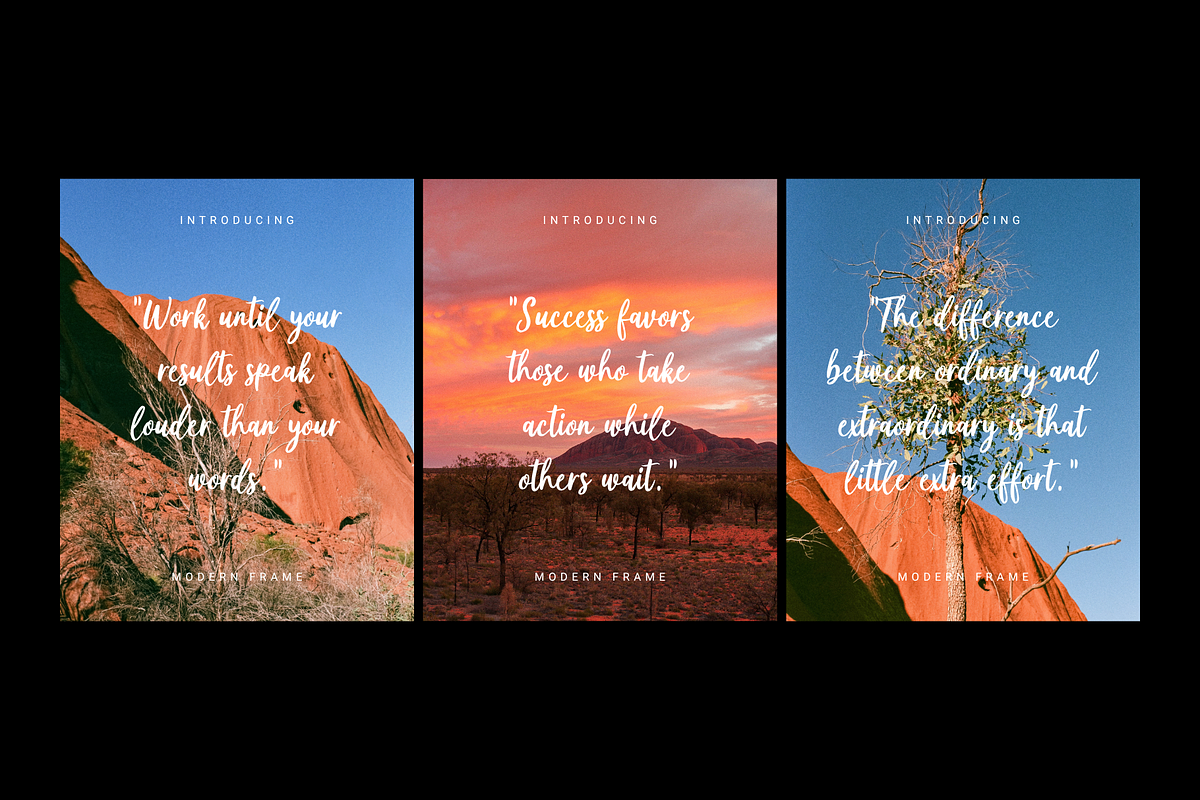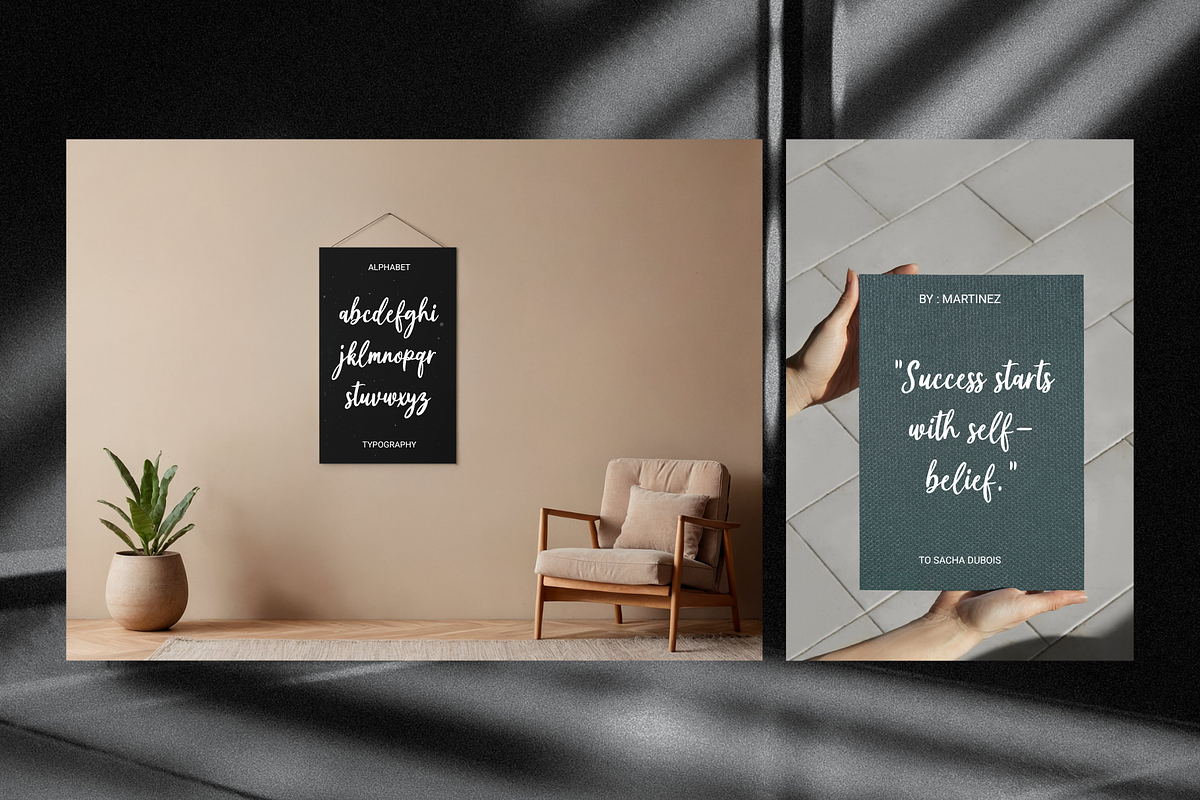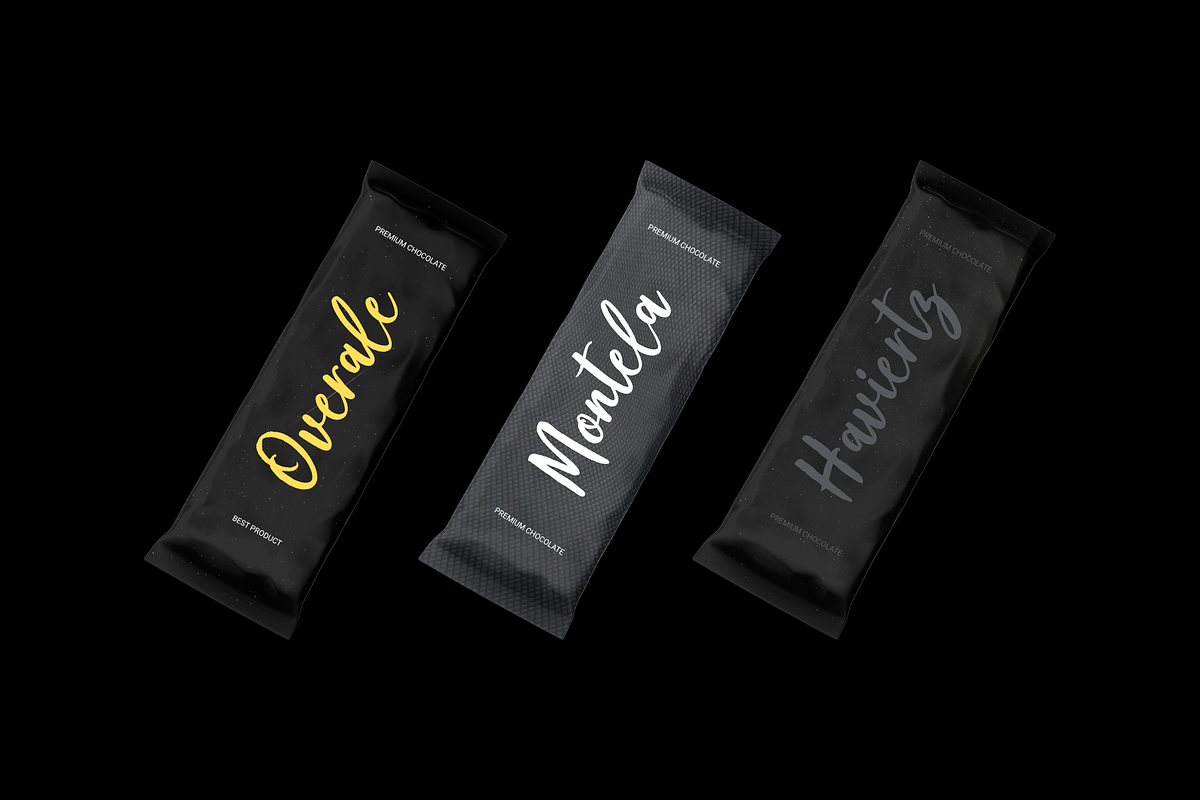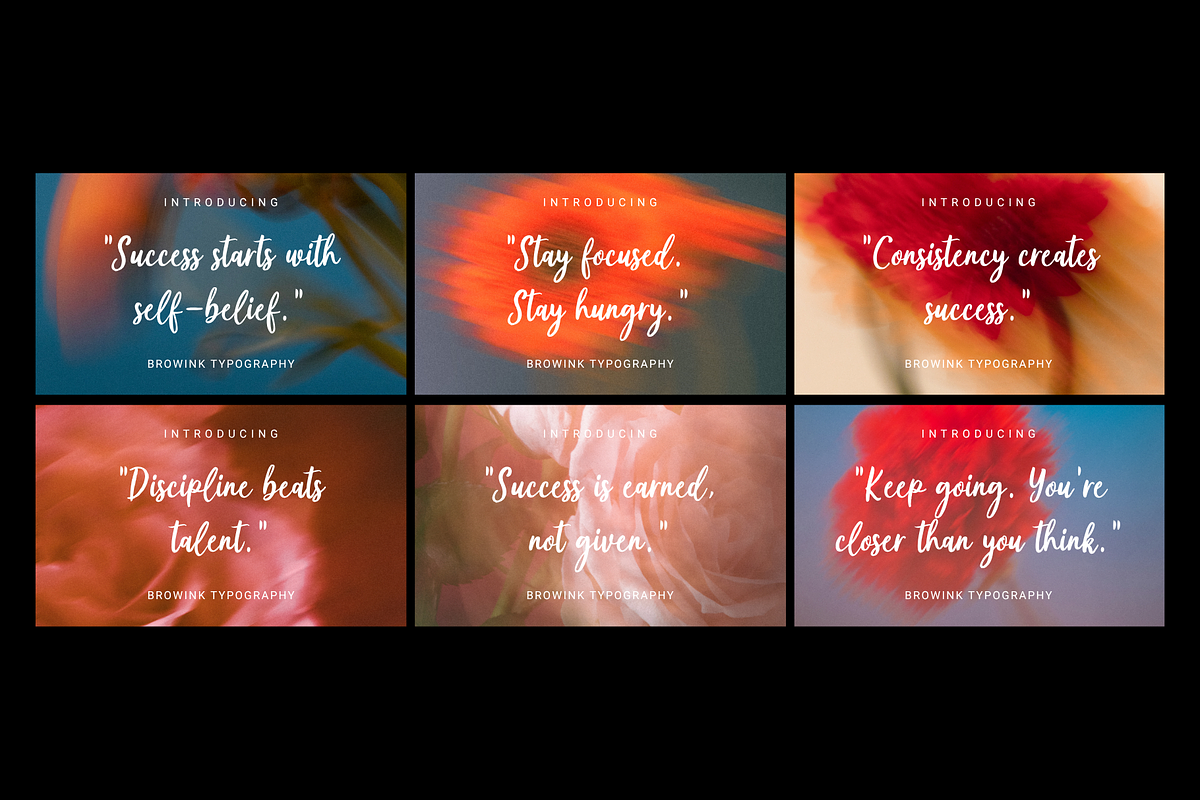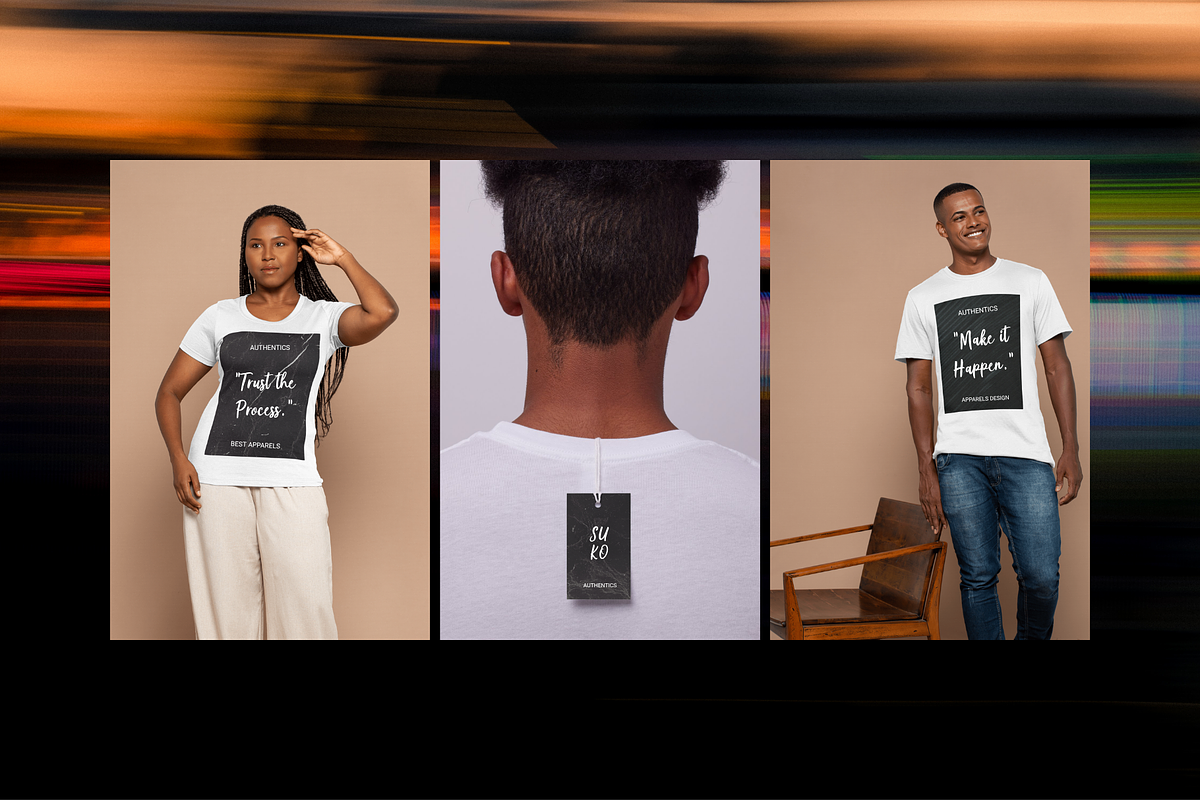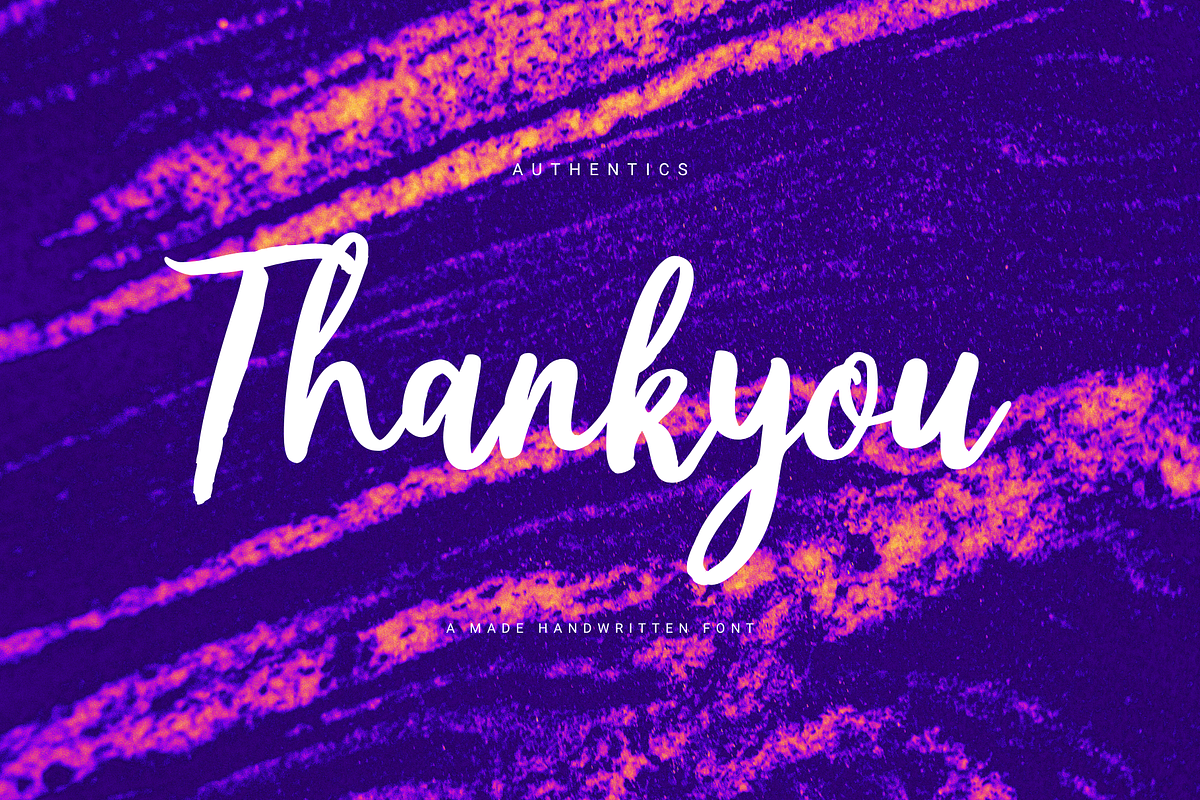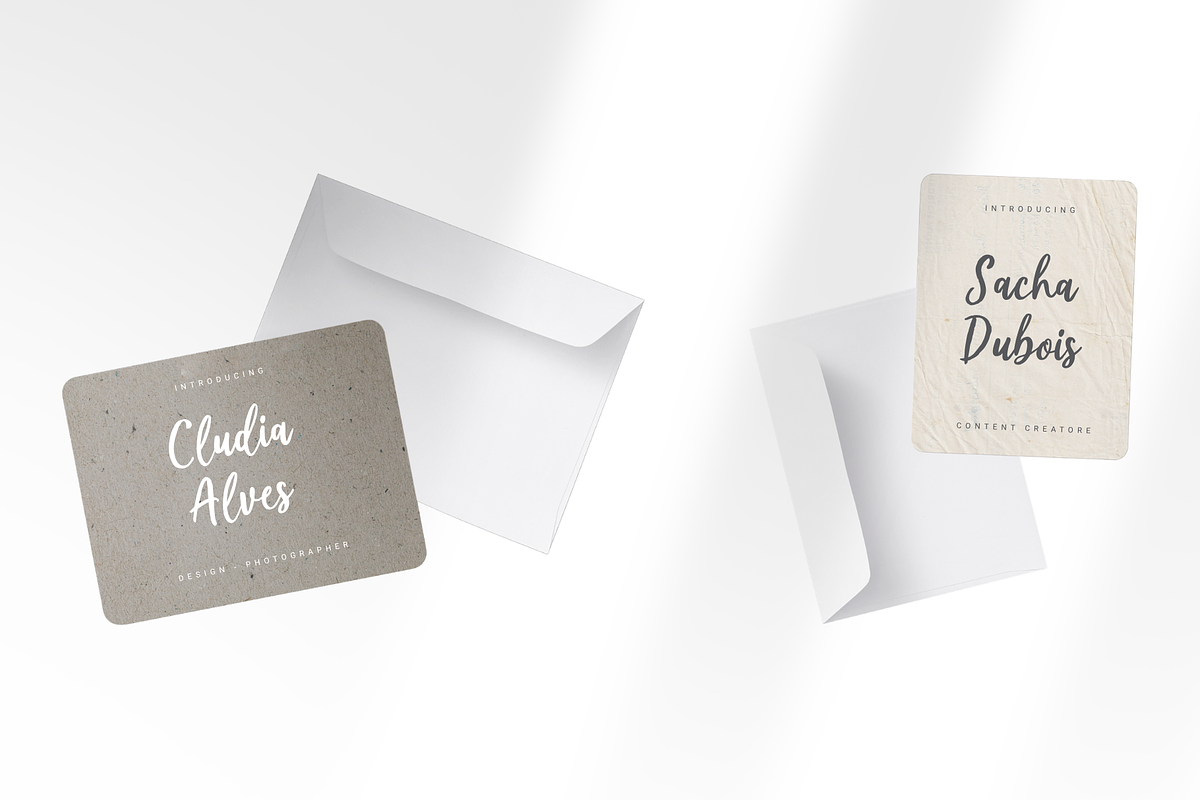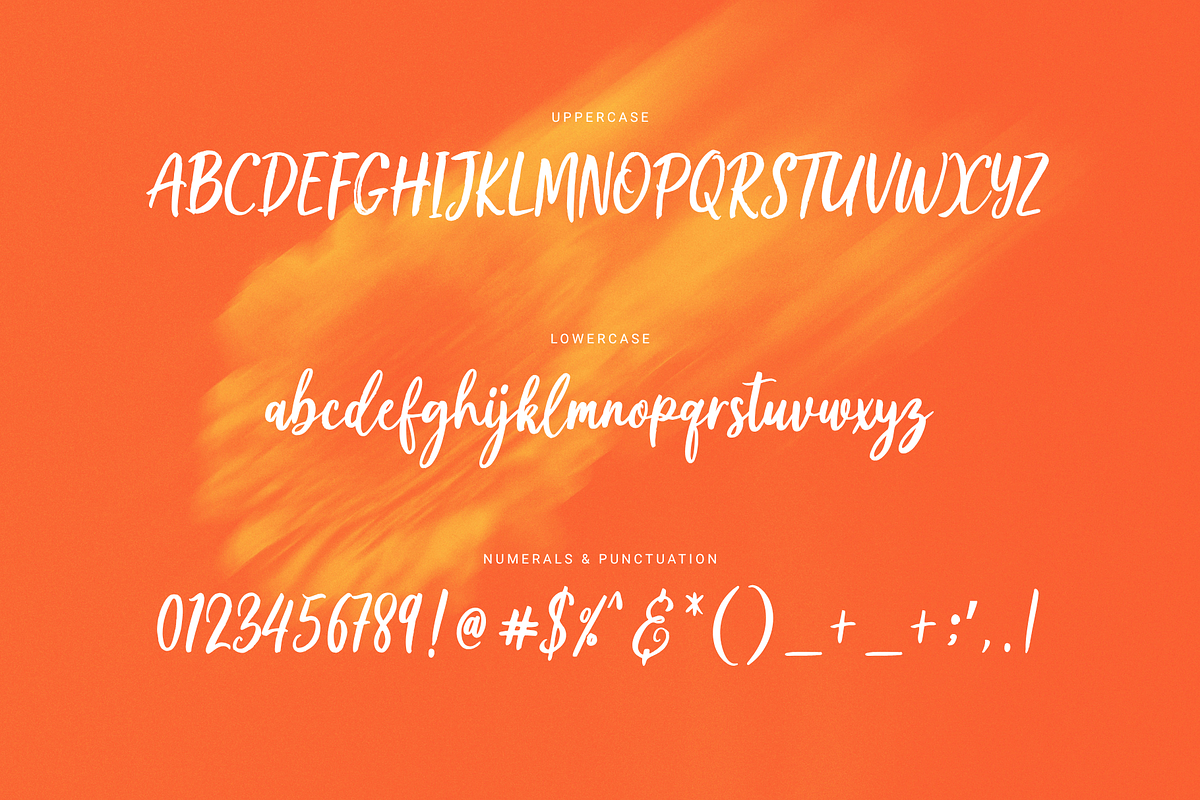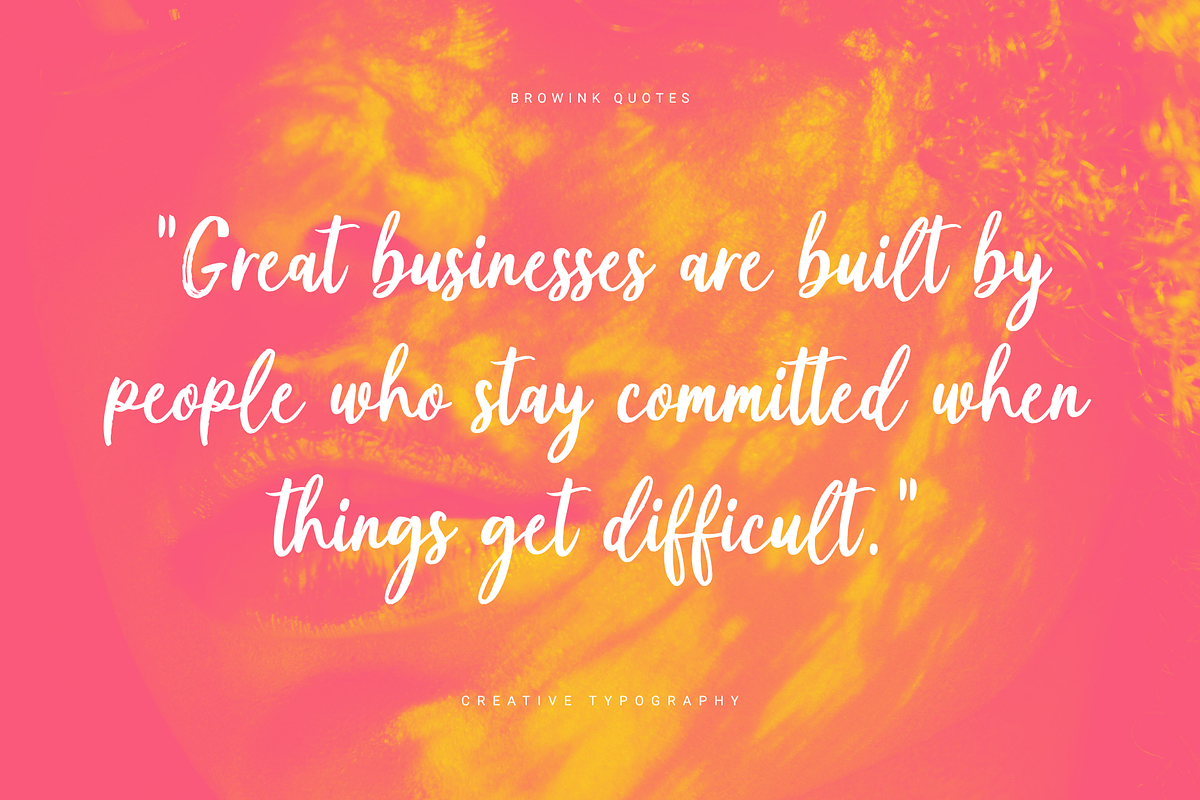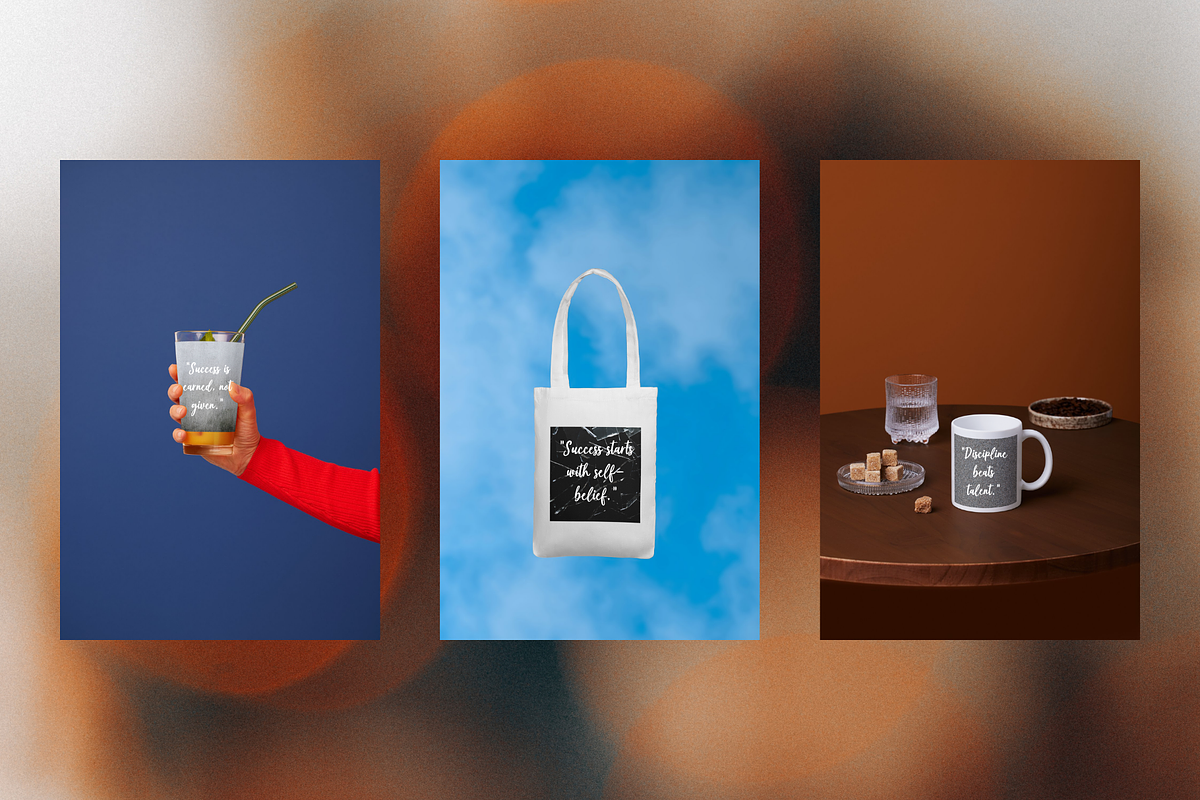
Browink
Introducing the exquisite Browink handwritten script font! Elevate your designs with a blend of grace and contemporary flair. Crafted for creators seeking a touch of sophistication, this font offers a seamless fusion of beauty and modernity.
Browink boasts a wealth of OpenType features, including stylish swashes at the beginning and end of words, unique alternate characters for most lowercase letters, numerals, punctuation, alternates, ligatures, and support for various languages. With Browink, you can bring a captivating touch to branding, invitations, social media, and more. Experience design innovation with Browink!